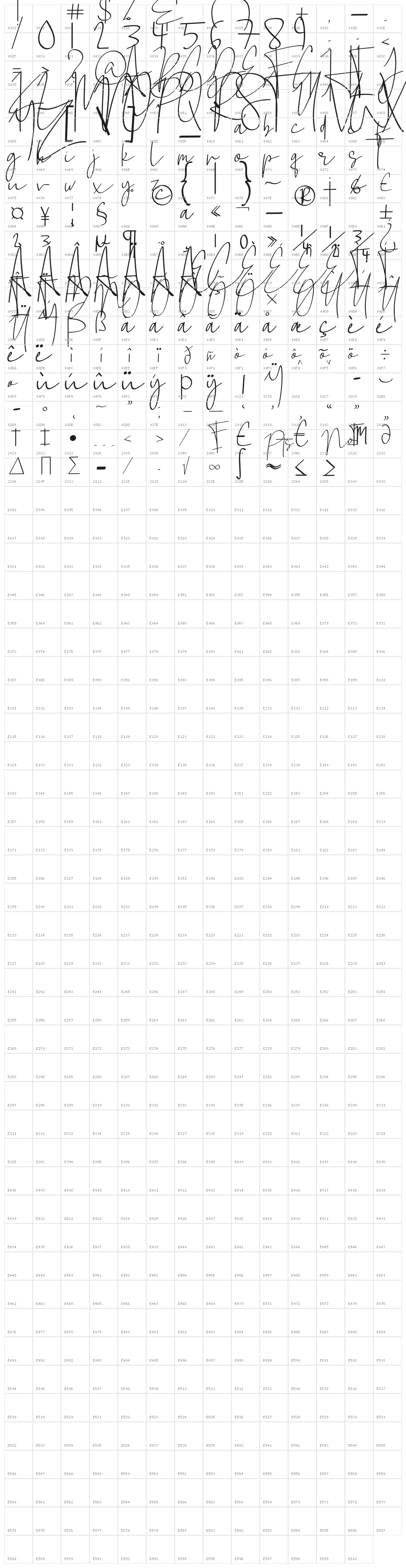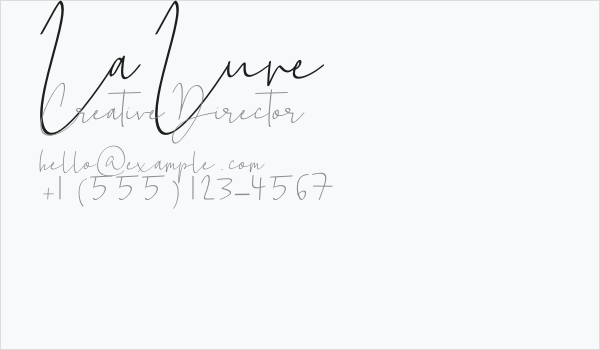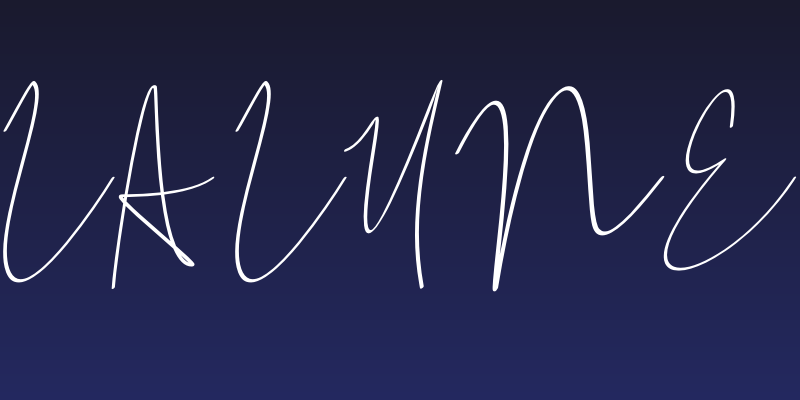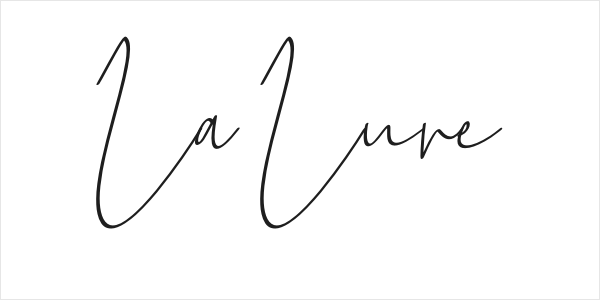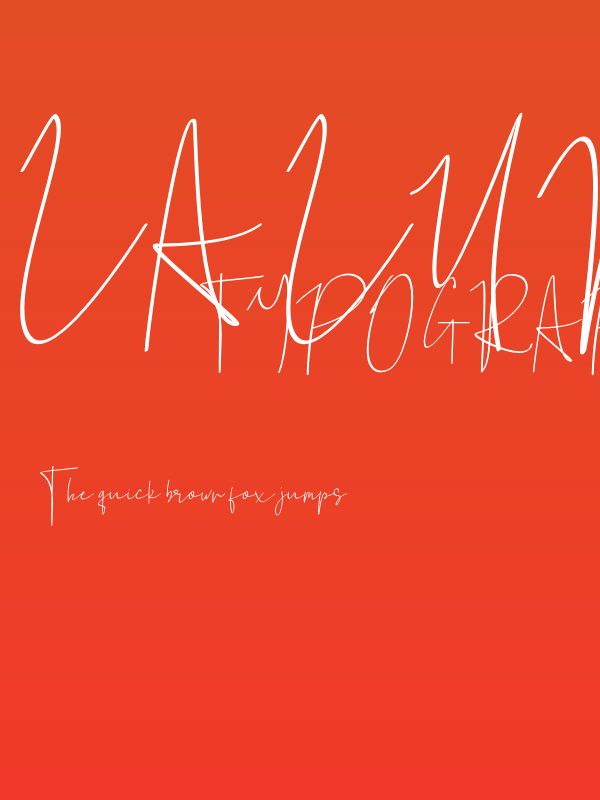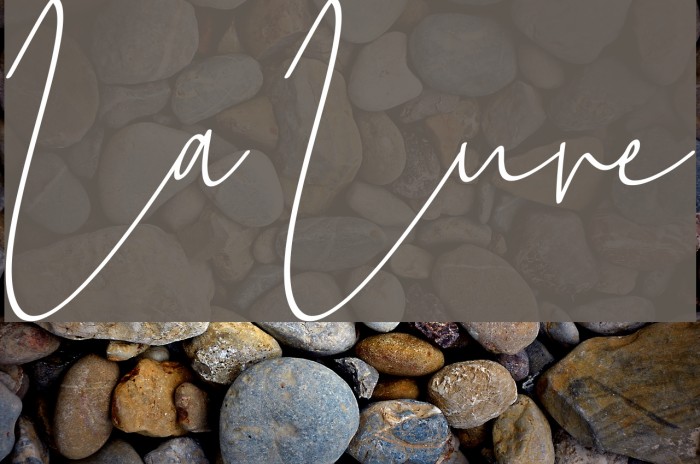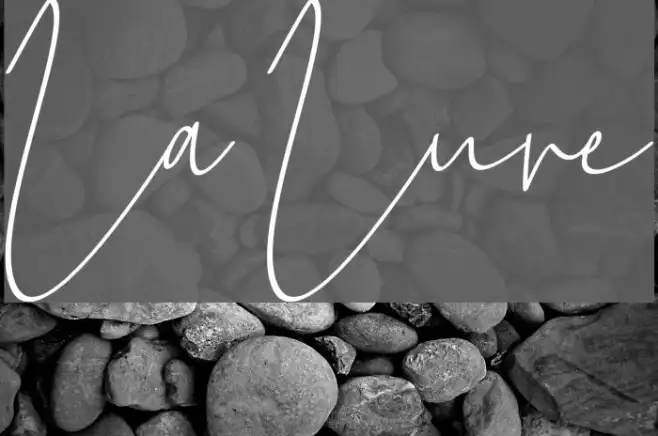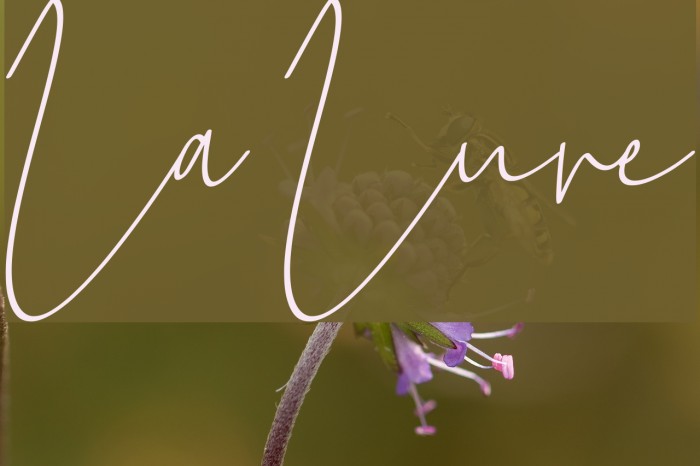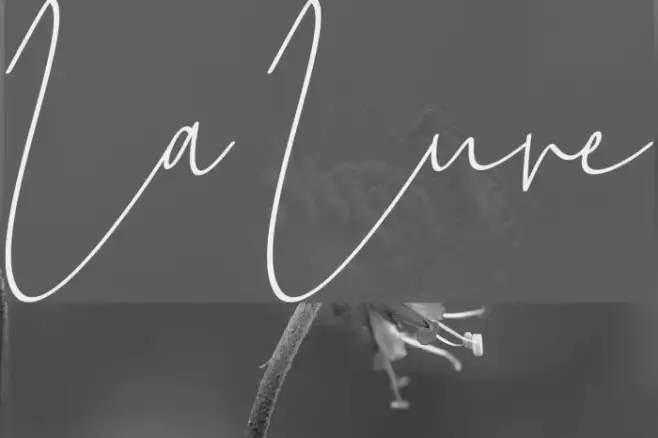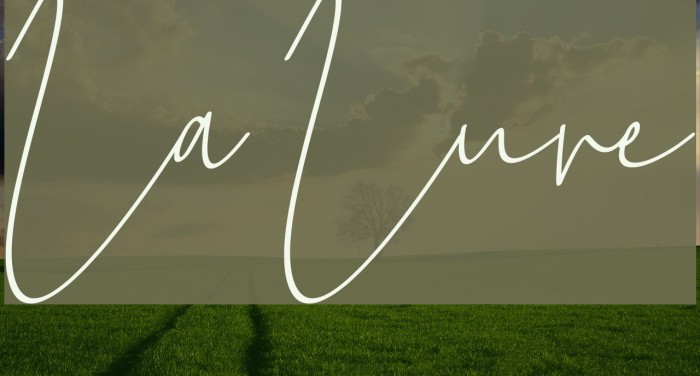
La Lune Font
La Lune Description
This font exudes a casual and artistic flair, characterized by its handwritten style that mimics the fluidity of cursive writing. The uppercase letters are tall and slender, with a slight slant that adds a dynamic feel. Lowercase letters maintain a consistent flow, with some letters featuring loops and swirls that enhance its playful nature. The numbers are clear and legible, maintaining the same handwritten aesthetic. Special characters are creatively integrated, complementing the overall style. This font is perfect for projects that require a personal touch, such as invitations, greeting cards, or artistic branding.
| Overall Style | Casual, Artistic |
| Proposed Projects | Ideal for invitations, greeting cards, artistic branding, and personal projects. |